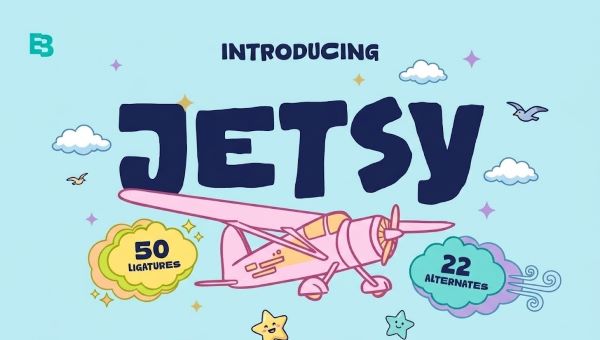
Jetsy Font
Jetsy by Eko Bimantara is a cartoon display font with the kind of rounded, exuberant energy that feels built for speed and good humour. Its letterforms are plump and characterful, carrying a retro cartoon sensibility that recalls mid-century animation titles — playful without being childish, bouncy without losing structure. With 300 glyphs in the trial release, it offers solid coverage for display use. It fits naturally into game interfaces, children’s media, youth brand identities, apparel graphics, and any headline that needs to arrive with a grin. Free for personal use.